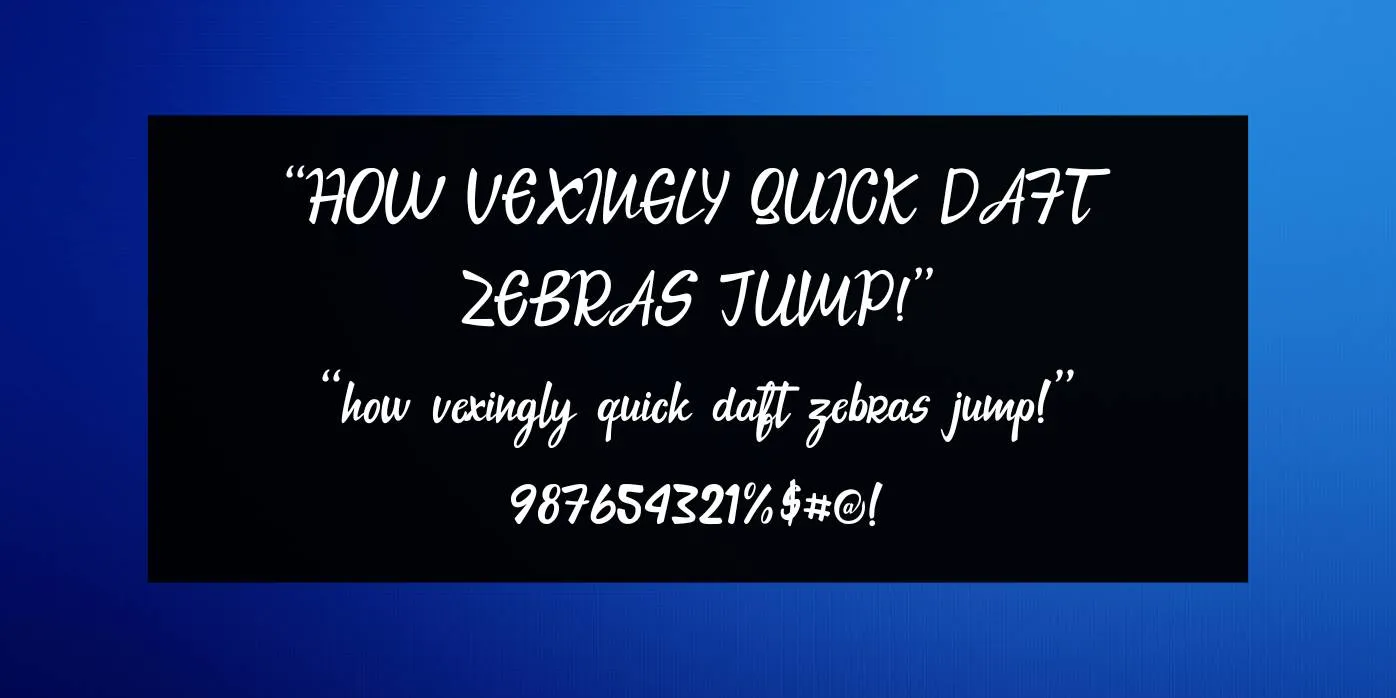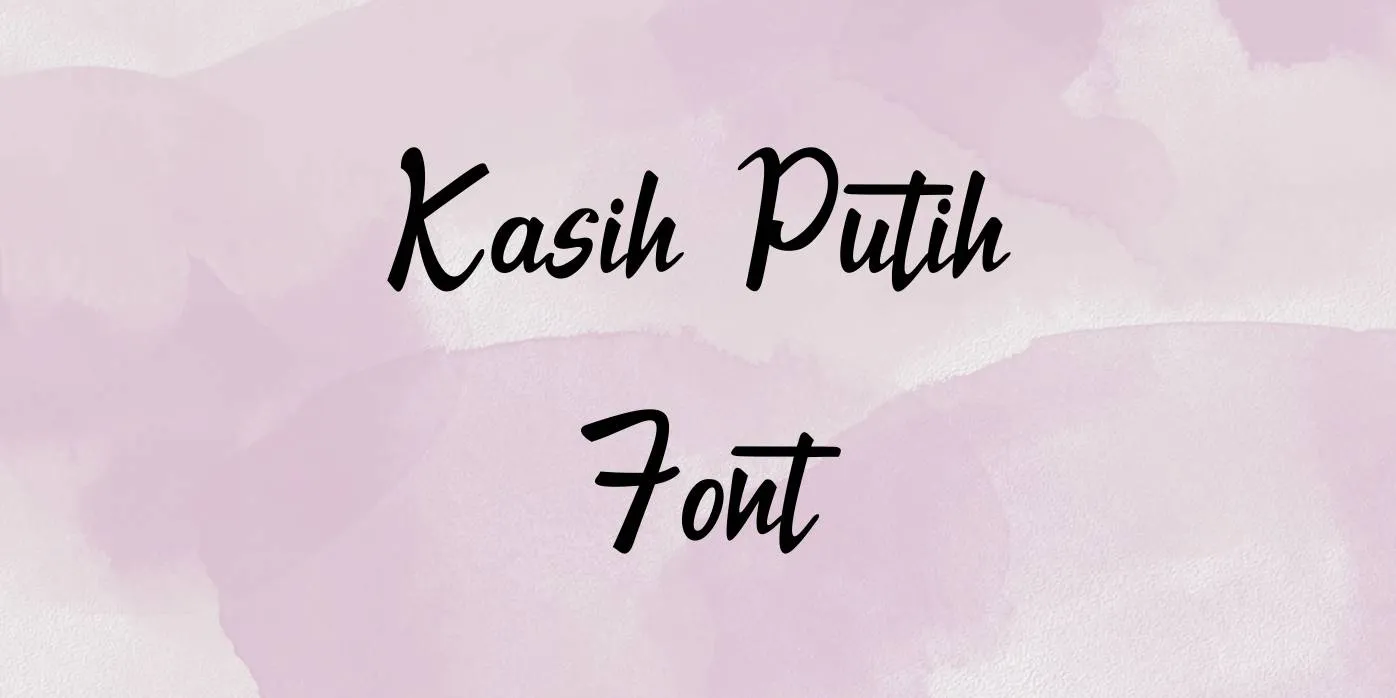
Kasih Putih Font
Tigadestd is the designer of Kasih Putih Font. It is a script-type font that is free for your projects. You need a license to use this typeface. The characters of this typeface have fantastic and stunning features.
They can fit into almost every type of project and design. An online generator tool of this typeface is also fantastic. With this tool, you can easily convert all your simple text into fancy texture. This font also has stunning features for pairing with another typeface.